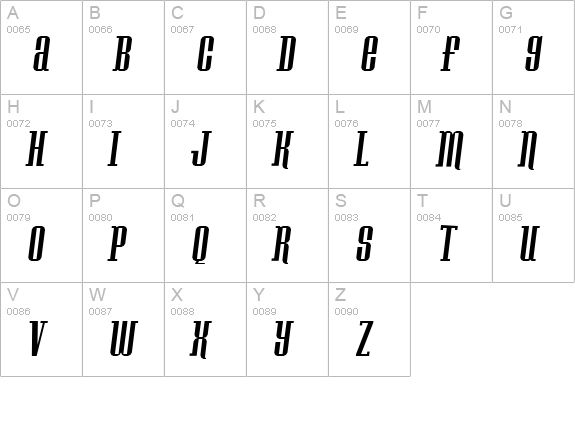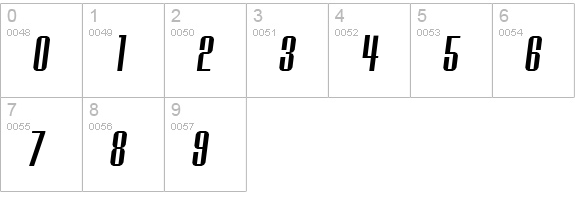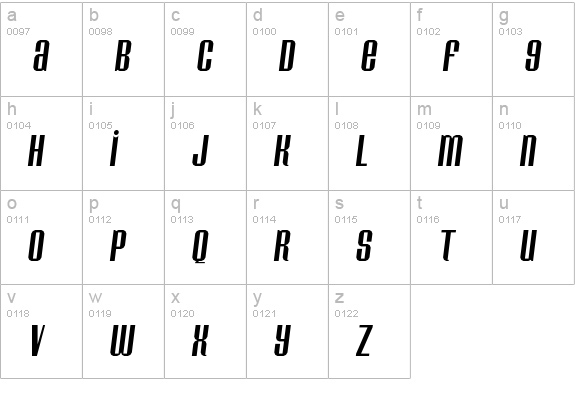
Konspiracy Theory slant Font Details
The Konspiracy Theory slant font is a bold and edgy typeface that exudes mystery and intrigue. With its unique slanted design, this font is perfect for projects that require a touch of conspiracy and suspense. The sharp angles and dynamic curves of Konspiracy Theory give off a sense of urgency and excitement, making it ideal for posters, book covers, and other designs that need to grab attention. This font is freely available to download at FontsMarket.com, where you can easily add it to your font collection and start using it in your creative projects. With Konspiracy Theory slant font, you can add a touch of intrigue and drama to your designs, making them stand out and captivate your audience. Let your creativity run wild with this captivating and mysterious font.